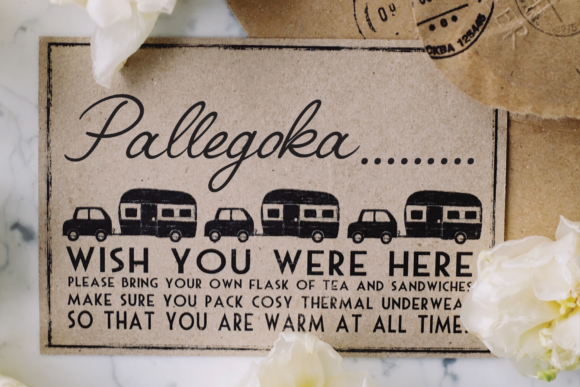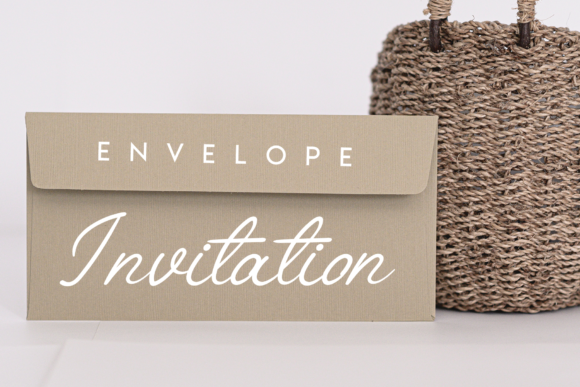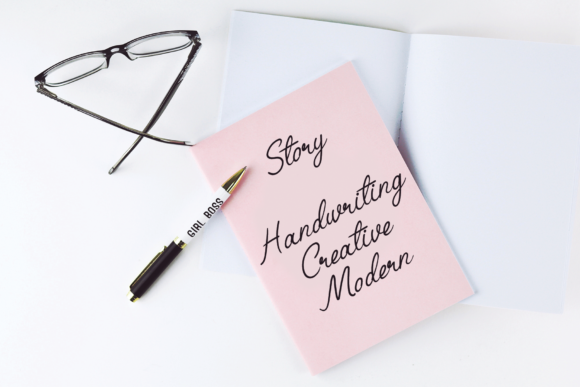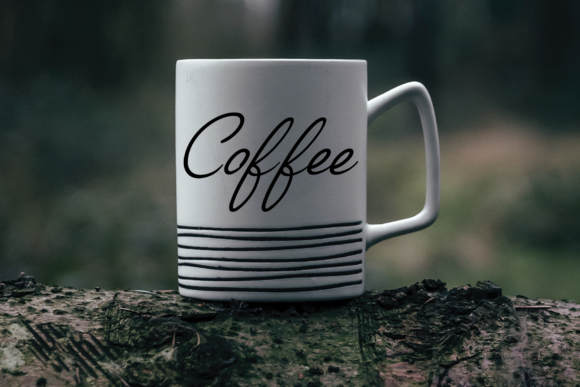
Introducing Angelina Font: The Elegant and Timeless Choice for Designers and Crafters
Are you looking for a font that exudes elegance and sophistication? Look no further than Angelina Font, a beautiful, flowing handwritten font that is sure to capture your heart. With its incredibly distinct and timeless style, Angelina Font is perfect for designers and crafters who want to add a touch of luxury to their projects.
What is Angelina Font?
Angelina Font is a carefully crafted handwritten font that is designed to evoke a sense of elegance and refinement. Its flowing lines and curves create a beautiful, organic feel that is perfect for a wide range of design applications. Whether you’re working on a logo, a poster, or a digital project, Angelina Font is sure to add a touch of sophistication and style.
Key Features of Angelina Font
So, what makes Angelina Font so special? Here are just a few of its key features:
- Elegant and refined: Angelina Font is designed to be elegant and refined, making it perfect for projects where you want to create a sense of luxury and sophistication.
- Flowing handwritten style: The font’s flowing handwritten style creates a beautiful, organic feel that is perfect for a wide range of design applications.
- Incredibly distinct: Angelina Font has an incredibly distinct style that sets it apart from other fonts. Its unique letterforms and flowing lines make it easy to recognize and remember.
- Timeless: Unlike some fonts that can look dated or trendy, Angelina Font has a timeless quality that ensures it will remain stylish and relevant for years to come.
How to Use Angelina Font in Your Designs
So, how can you use Angelina Font in your designs? Here are a few ideas to get you started:
- Logos and branding: Angelina Font is perfect for logos and branding projects where you want to create a sense of elegance and sophistication.
- Posters and flyers: The font’s flowing style makes it perfect for posters and flyers where you want to create a sense of drama and flair.
- Digital projects: Angelina Font is also perfect for digital projects such as social media graphics, website headers, and more.
- Crafting and scrapbooking: If you’re a crafter or scrapbooker, Angelina Font is a great choice for adding a touch of elegance to your projects.
Tips for Getting the Most out of Angelina Font
Here are a few tips for getting the most out of Angelina Font:
- Use it sparingly: While Angelina Font is beautiful, it can be overwhelming if used too much. Use it sparingly to create a sense of elegance and sophistication.
- Experiment with different colors: The font’s flowing style looks great in a variety of colors. Experiment with different colors to find the one that works best for your project.
- Pair it with other fonts: Angelina Font pairs well with other fonts, especially serif fonts. Experiment with different pairings to find the one that works best for your project.